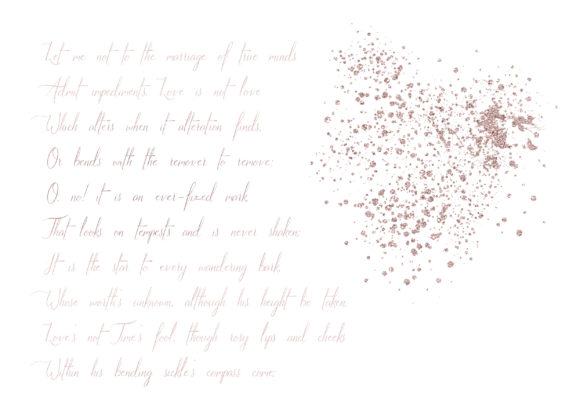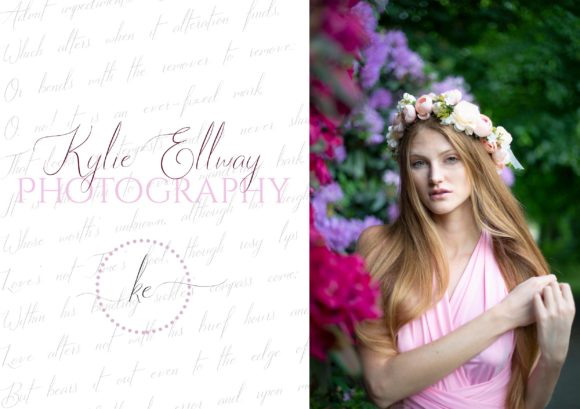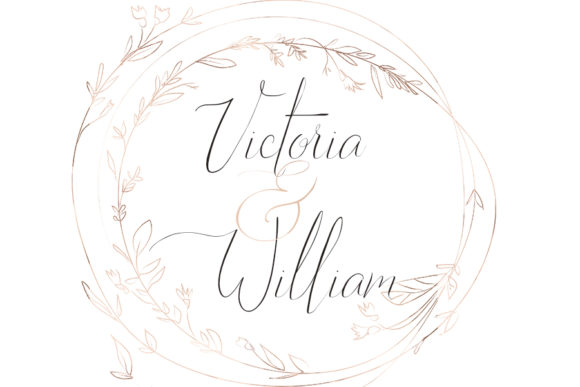
The Cariad Font: A Beautiful Signature Style for Your Creative Projects
Have you ever been working on a design project, and suddenly, you’re stuck on finding the perfect font? I recall a recent experience where I was tasked with creating a wedding invitation for a close friend. The challenge was to find a font that was both elegant and personal. That’s when I stumbled upon the Cariad font, a beautiful and modern signature style brush font that has become a game-changer for my designs.
An Honest Review of Cariad Font
The Cariad font has quickly become one of my favorites, and here’s why:
- ✨ Unique and Personal Touch: Cariad adds a distinctly personal touch to any design project, making it perfect for logos, invitations, wedding invites, cards, and more.
- ✅ Modern and Elegant: The font’s modern and elegant design makes it suitable for a wide range of creative projects.
- 💫 Highly Versatile: Cariad can be used for both digital and print projects, making it a great addition to any designer’s toolkit.
While Cariad is an amazing font, it’s not without its quirks:
- 🤔 Limited Character Set: Some users may find the character set limited, especially when working with non-English languages.
- ⚠️ Requires OpenType Features: To get the most out of Cariad, you’ll need to use OpenType features, which can be a bit tricky for beginners.
The Story Behind Cariad Font
The Cariad font was designed by a talented type designer who’s passionate about creating beautiful, unique fonts. The designer’s inspiration for Cariad came from a combination of traditional calligraphy and modern digital design. The result is a font that’s both elegant and personal, perfect for designers who want to add a touch of sophistication to their projects.
| Font Name | Cariad Font |
| Author | Kylie Ellway |
| What is Cariad font? | Cariad is a beautiful and modern signature style brush font that’s perfect for logos, invitations, wedding invites, cards, and any design project that requires a unique and distinctly personal touch. |